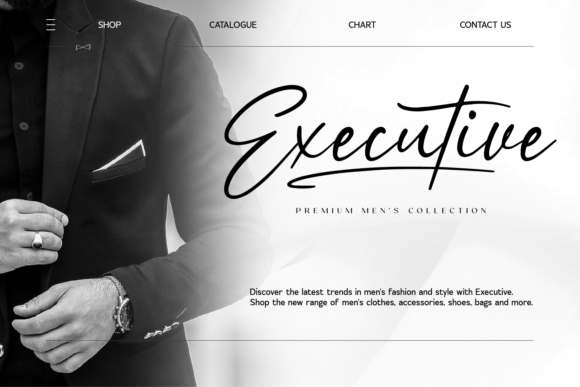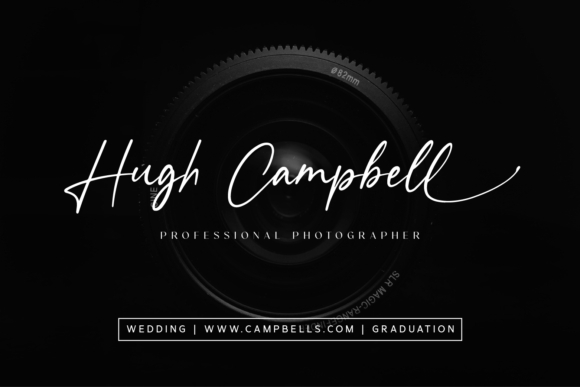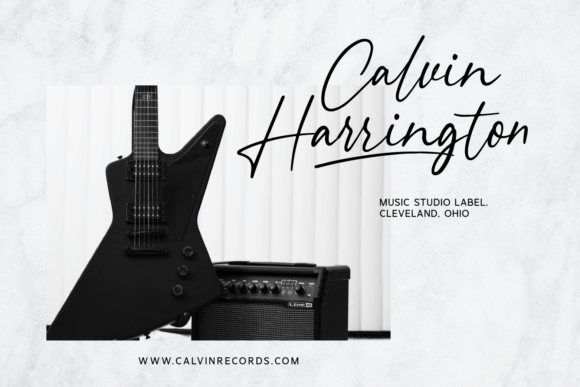
Blackwealth Font
Meet Blackwealth Script, a modern script font loaded with ligatures for that aesthetic look of script. Blackwealth Script can be used for invitation cards and wedding calligraphy, elegant logos, small business branding, packaging, and much more!